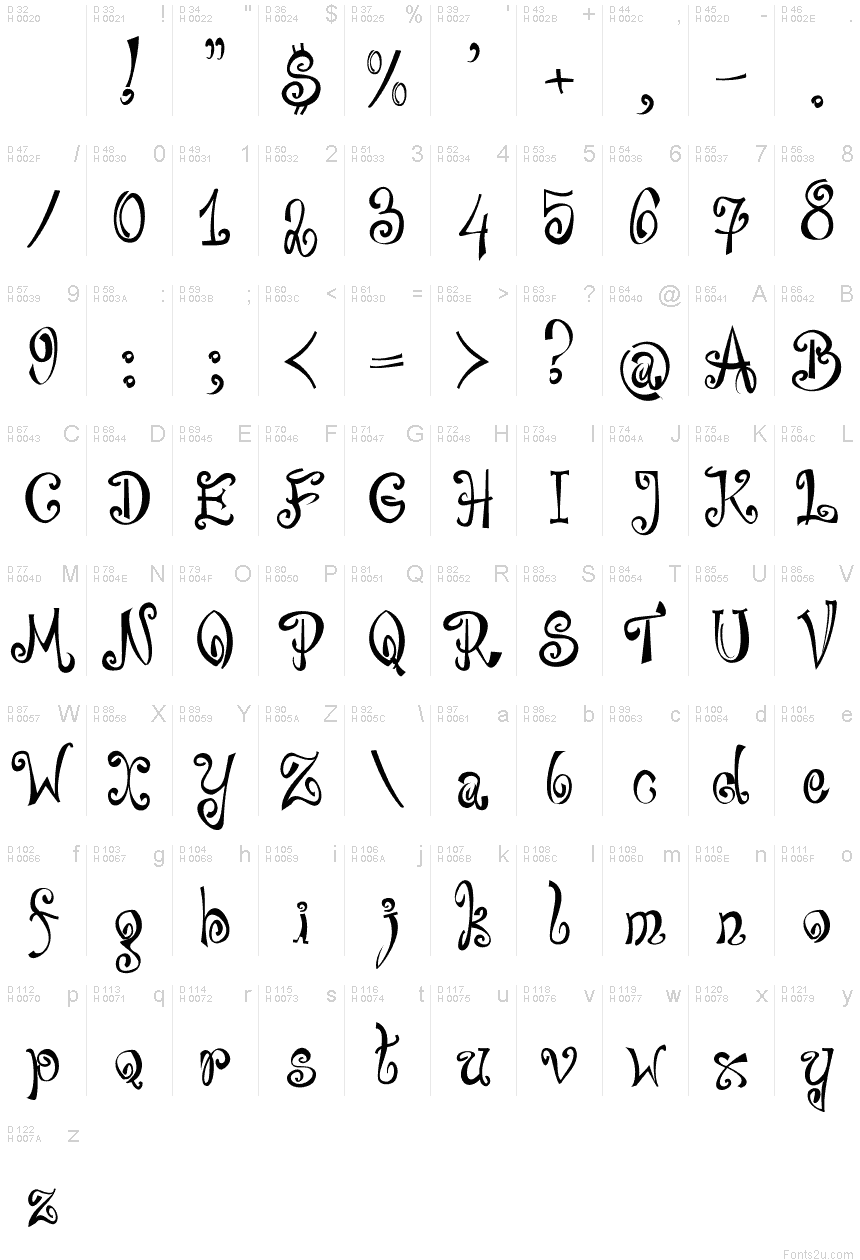
Bajareczka
Bajareczka font by Atrax is a free curly decorative typeface that looks like it was scribbled straight out of a storybook. Its inky loops, playful swirls, and slightly irregular strokes feel hand-drawn and a little mischievous, like old fairy-tale titles on worn paper. The letters bunch together in a cozy way, giving headlines a dense, whimsical texture that instantly reads as magical and childlike.
This free font shines on children’s book covers, party invitations, candy or toy packaging, craft fair signage, fantasy event posters, and playful logos. Using Bajareczka in large sizes lets the curls and twists really breathe, while pairing it with a clean sans serif for body text keeps everything legible and grounded.